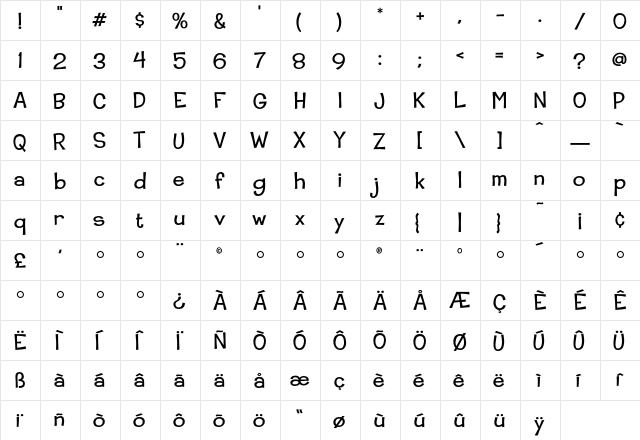
CoopLight Regular
Design Context for CoopLight Typeface
CoopLight offers clean, dependable letterforms without strong stylistic allegiance, making it a practical choice for designers who need flexibility. Its slender proportions lend an understated elegance to any composition.
Pro Tip: Pair CoopLight with a font of contrasting weight or personality to build a more expressive typographic hierarchy.